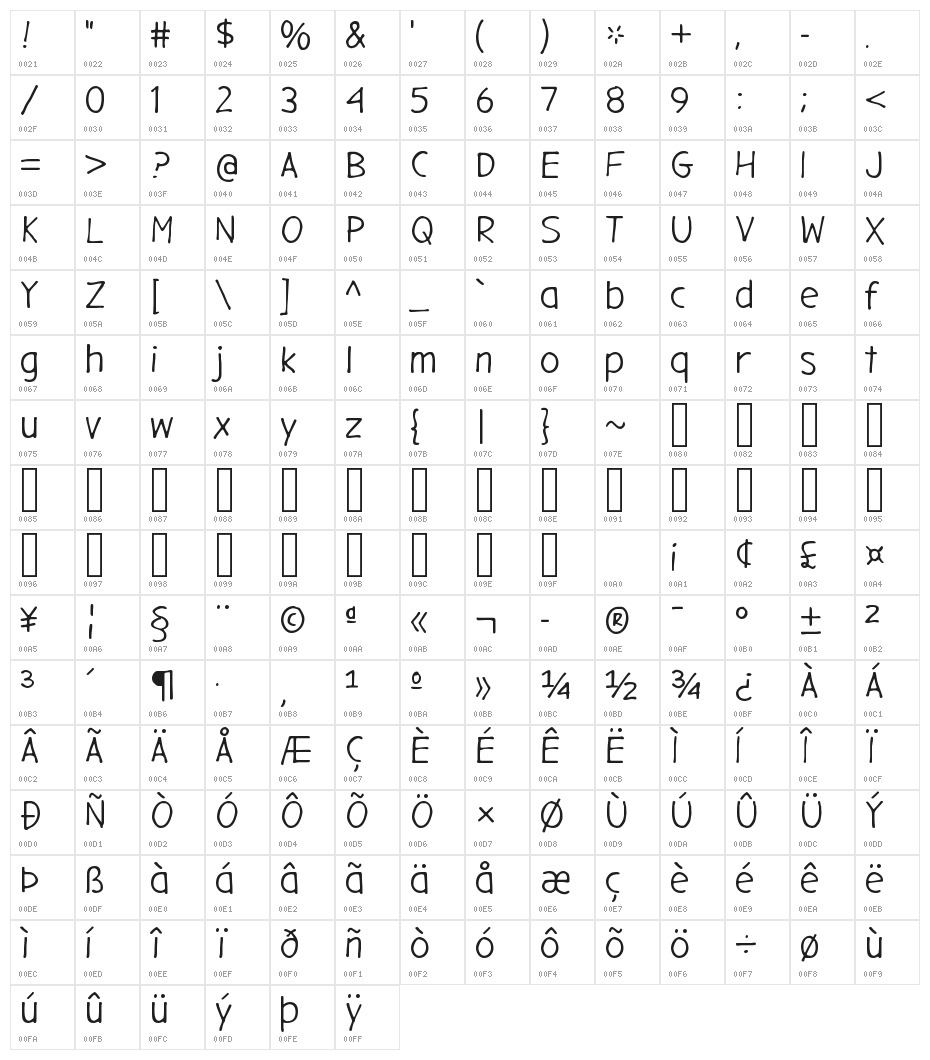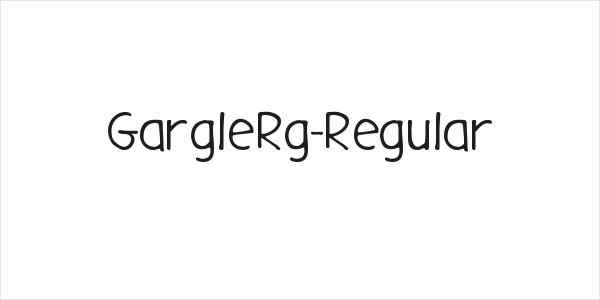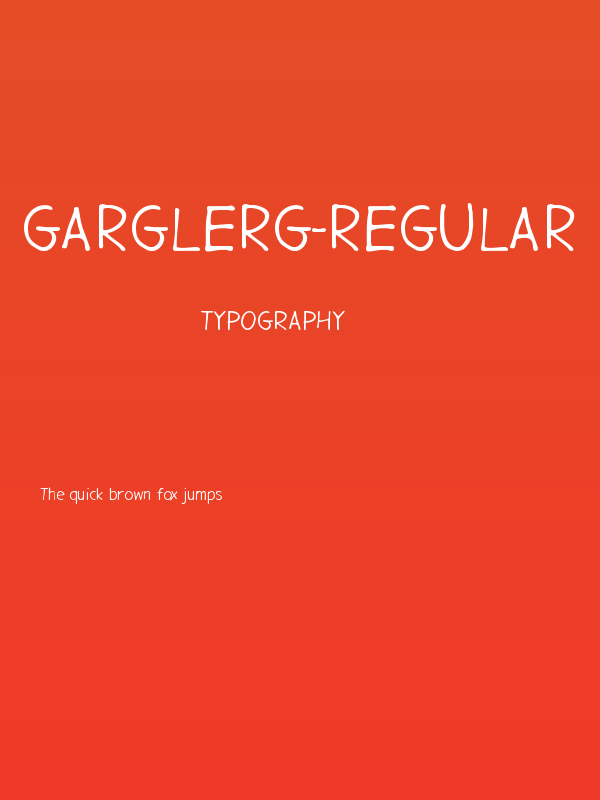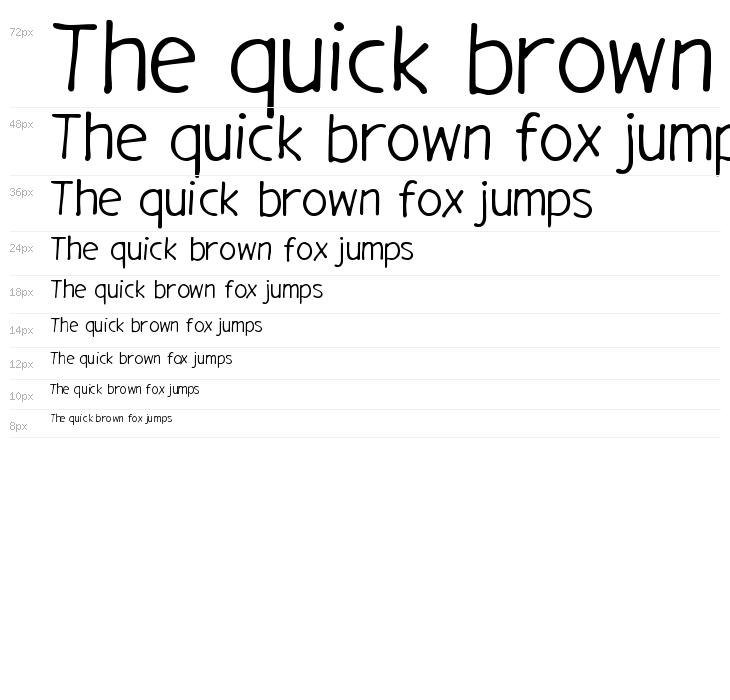
GargleRg-Regular Font
GargleRg-Regular Description
This playful and informal font features rounded, smooth edges and a hand-drawn appearance, giving it a friendly and approachable look. The characters are slightly irregular, adding to its charm and making it ideal for casual and creative projects. The uppercase and lowercase letters maintain a consistent style, with a moderate height difference between them. The numerals and special characters are designed to match the overall aesthetic, ensuring a cohesive look across all text elements. This font is perfect for projects that require a personal touch, such as children's books, greeting cards, or playful branding.
| Proposed Projects | Ideal for children's books, greeting cards, playful branding, and creative projects. |